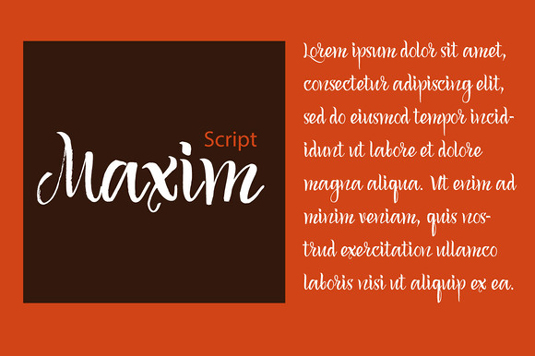
Font of the day: Maxim Script
Maxim Script by Vera Holera
Today's typeface of choice is Maxim Script, by Vera Holera. Availabe from Creative Market, Maxim Script is described as 'a beautiful and rhythmic script with easy cheerful nature. Great for posters, greeting cards, wedding invitations, recipe cards, menu design and so on'.